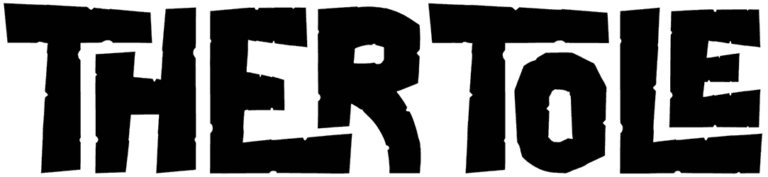
Side Of Monster Font
Capture a creepy touch into your upcoming design with Side Of Monster. It is a spooky monster font that features a sort of weird and mysterious display. The font is bold and wavy, which contains all the characters except lowercase letters. It will be a good option for horror movies, book covers, costumes, party invitations, and other Halloween projects.